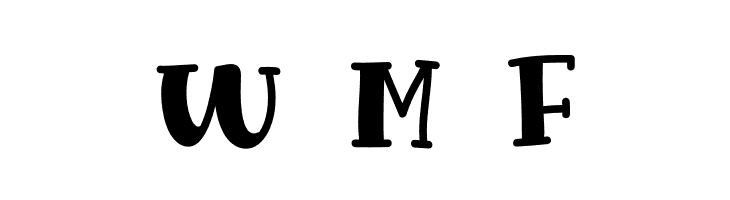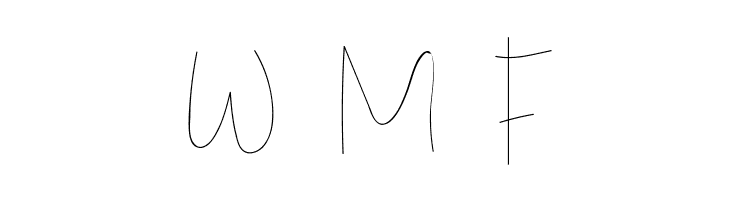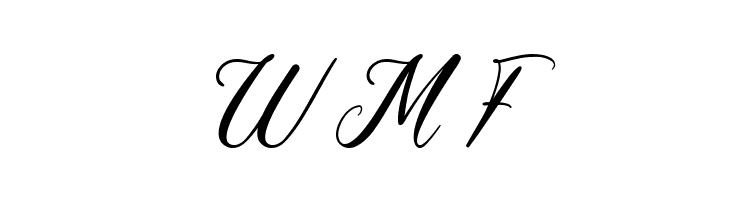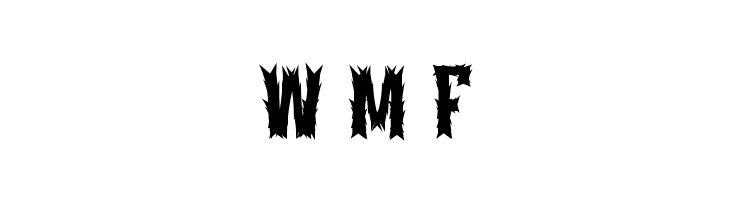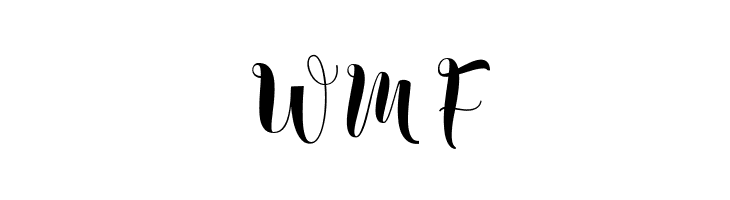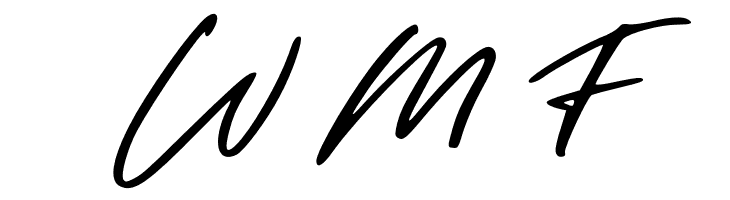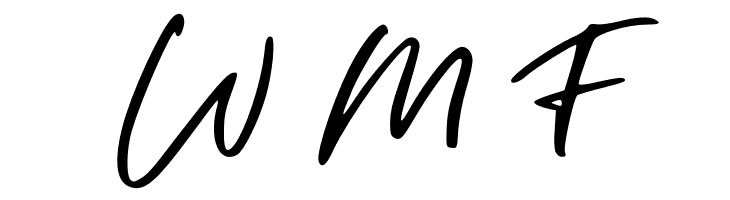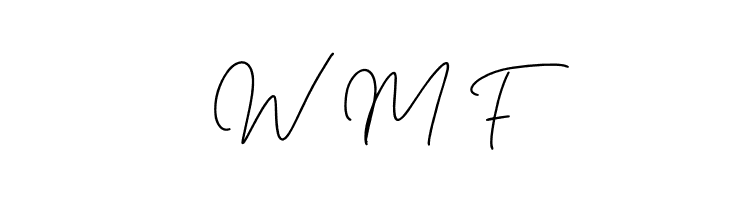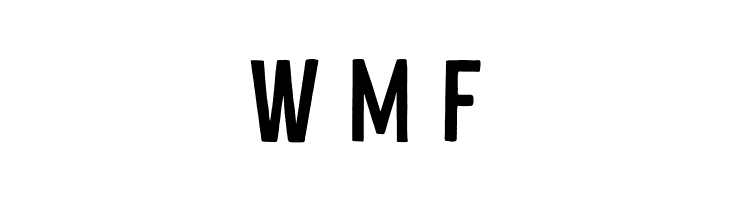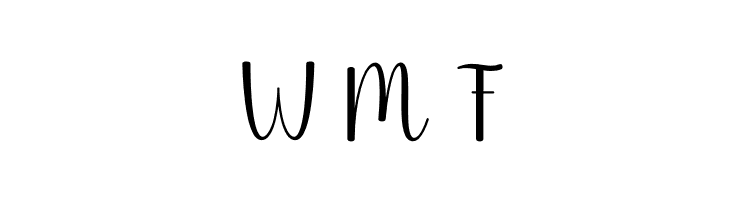
A playful, bold font with rounded strokes and decorative flourishes.
A playful, hand-drawn font with bold, rounded characters and a whimsical style.
A playful, bold typeface with rounded, bubbly characters ideal for fun designs.
A playful, bold handwritten font with a whimsical and friendly style.
A bold, playful handwritten font with thick strokes and lively letterforms.
A playful, whimsical handwritten font with thin, flowing lines and irregular letterforms.
A playful, handwritten font with tall, slender characters and a whimsical style.
A playful handwritten font with smooth, rounded strokes and a casual style.
A playful, hand-drawn font with rounded, bold characters.
A geometric, angular font with a modern, tech-inspired design.
A bold, playful handwritten font with smooth, rounded edges.
A playful, hand-drawn font with a bold, rounded style.
A playful, handwritten script font with bold uppercase and fluid lowercase letters.
A delicate and flowing script font with elegant, cursive letterforms.
A bold, high-contrast serif font with pronounced serifs and a classic style.
A flowing, cursive font with elegant, sweeping strokes and a sophisticated appearance.
A bold, flowing script font with dynamic and elegant characteristics.
A bold, flowing script font with dramatic curves and calligraphic flair.
A bold, slightly condensed font with a hand-drawn quality.
A playful, hand-drawn font with rounded, quirky letterforms.
A decorative and bold font with elegant curves and artistic flair.
A dynamic, expressive handwritten font with brush-like strokes.
A bold, modern font with tall, narrow characters ideal for impactful headlines.
A bold, modern font with tall, narrow characters and strong visual impact.
A bold, jagged font with sharp, thorn-like edges and a dynamic, aggressive style.
A bold, jagged font with sharp, thorn-like edges for a fierce look.
An elegant script font with flowing, cursive letters and a sophisticated flair.
An elegant, flowing script font with ornate uppercase and connected lowercase letters.
A bold, playful font with a hand-drawn, artistic style.
A playful, handwritten font with a whimsical and dynamic style.
A playful and elegant script font with a modern twist.
A dynamic, flowing script font with smooth, cursive strokes.
A fluid and elegant script font with a cursive, handwritten style.
An elegant, flowing script font with graceful, connected letters and high contrast.